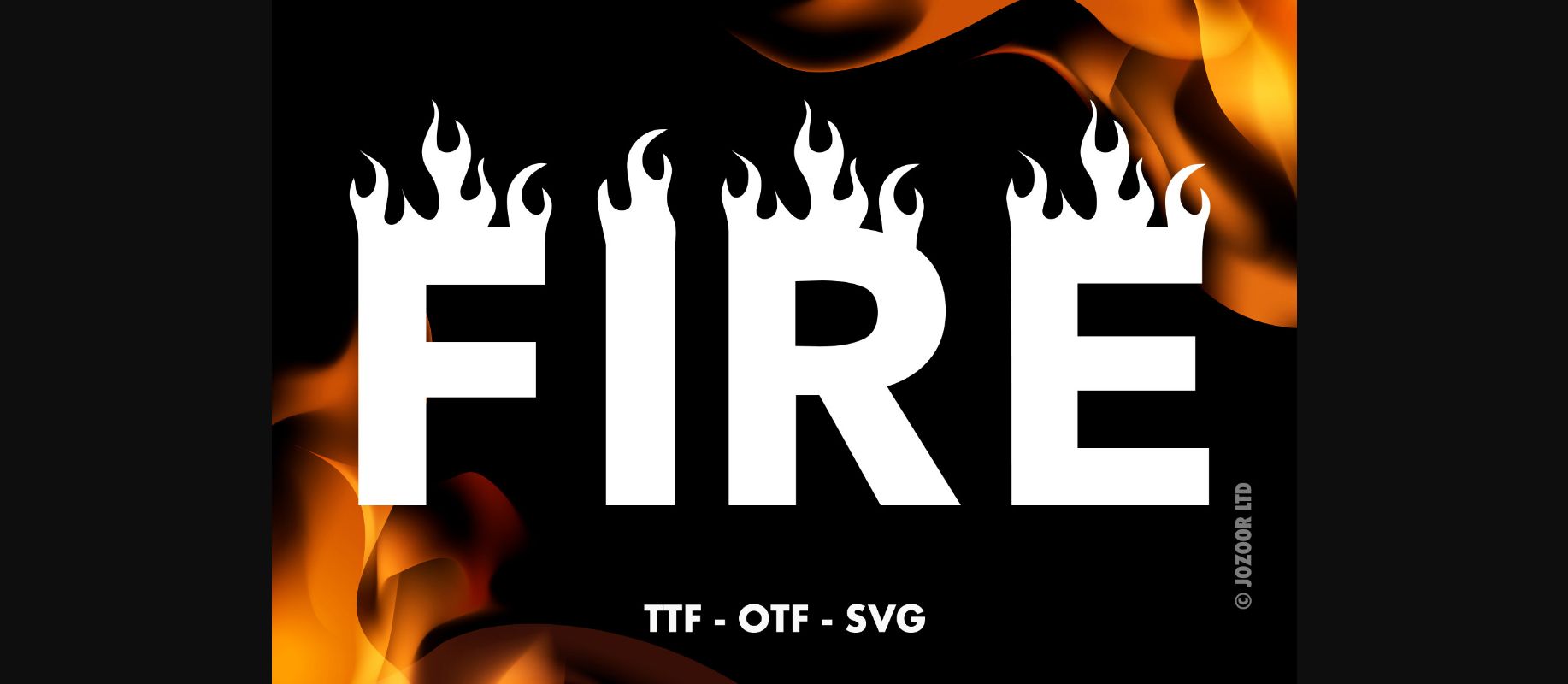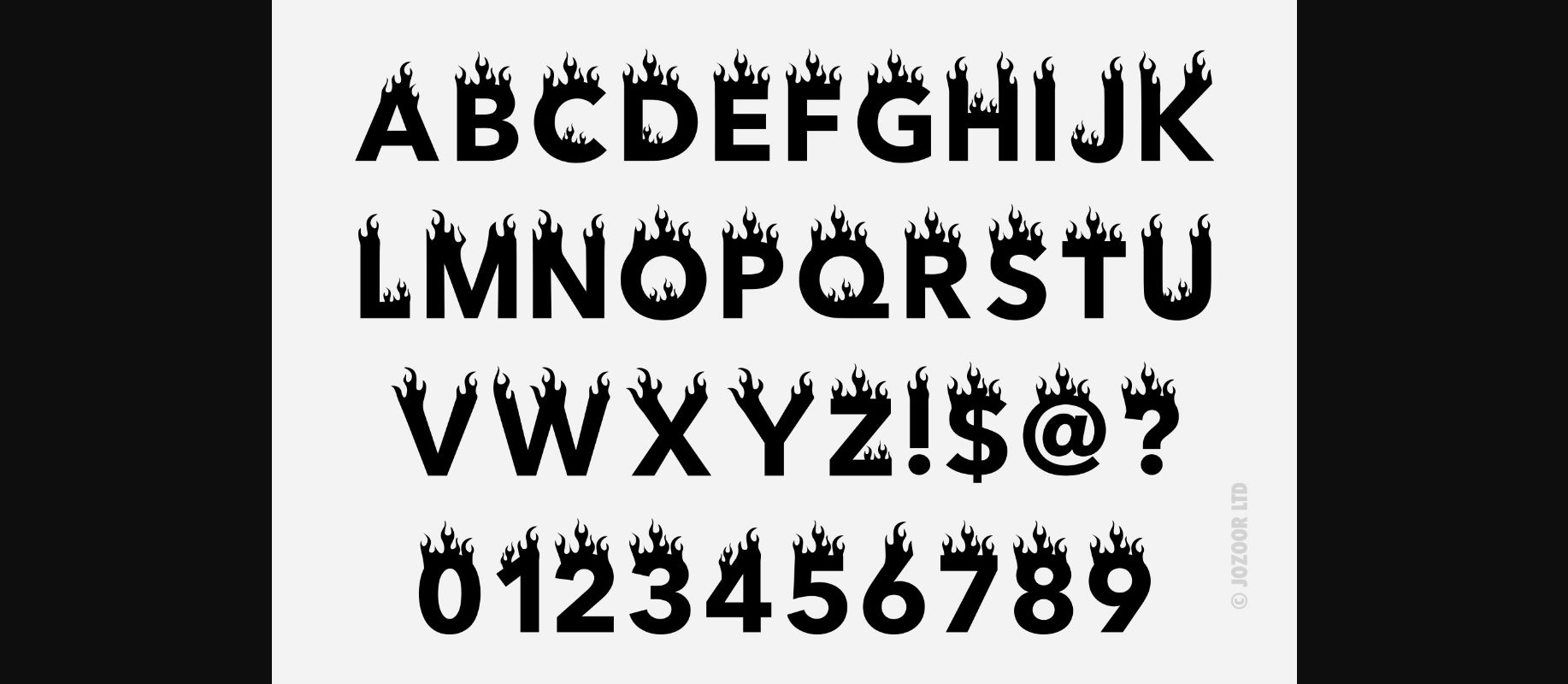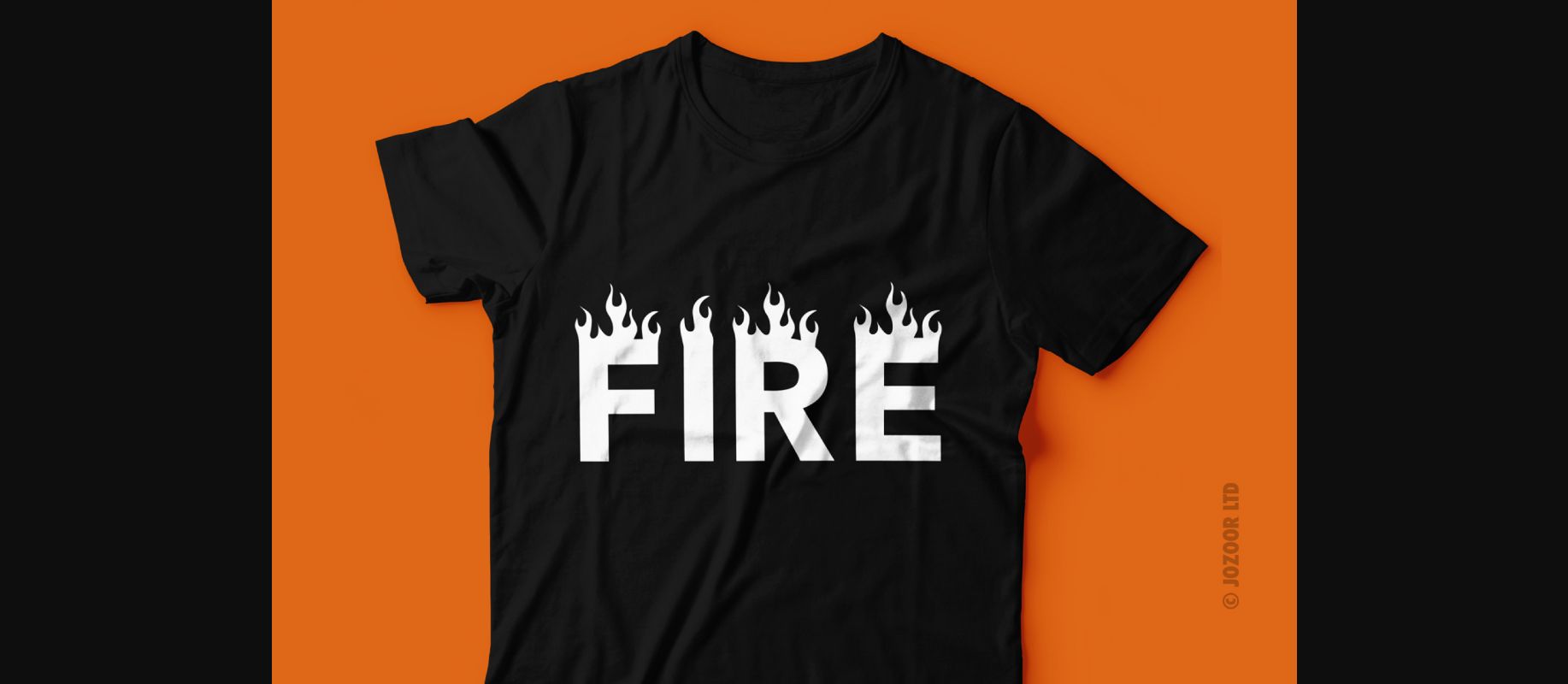
Fire Font Font
About Fire Font
Fire is a unique decorative font perfect to be used in your new creative projects such as crafting, t-shirt designs, posters, digital designs, presentations, book covers, and much more. Add it to your most creative ideas, and notice how it makes them come alive!